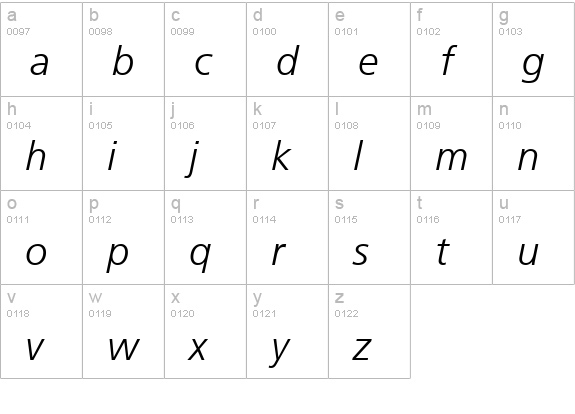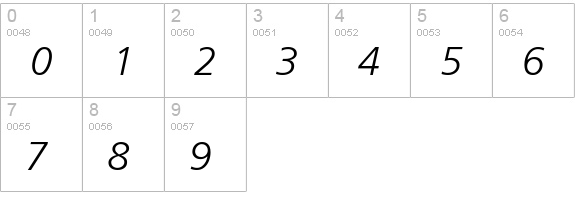
Palma Light SSi Light Italic is a refined, elegant, italic variant in the Palma typeface family \xE2\x80\x94 well suited to elegant body text, refined sub-headings, and luxury branding.
Palma Light SSi Light Italic font exudes elegance and sophistication with its delicate strokes and slanted italic design. This font is perfect for adding a touch of refinement to any project, whether it be a logo, a headline, or even a wedding invitation. Its light weight gives it a subtle and airy feel, making it a versatile choice for both print and digital media. What sets Palma Light SSi Light Italic font apart is not only its impeccable design, but also the fact that it is freely available for download at FontsMarket.com. This means that you can enhance your creative endeavors without any cost, making it an ideal choice for individuals and businesses alike. Whether you are a graphic designer looking to elevate your designs, a student working on a project, or a small business owner in need of a professional font, Palma Light SSi Light Italic font is a fantastic option. Its availability as a free download at FontsMarket.com ensures that you can access this high-quality font without any barriers. So why wait? Discover the beauty and versatility of Palma Light SSi Light Italic font today and unlock a world of design possibilities.